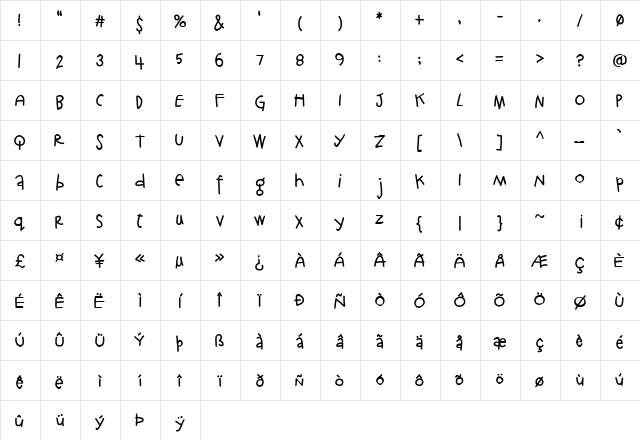
LDJ Hen Hand Regular
Design Context for LDJ Hen Hand Typeface
LDJ Hen Hand flows with the natural rhythm of handwritten lettering, making it ideal for designs that call for warmth and personal expression.
Font Pairing: Combine LDJ Hen Hand with a simple geometric sans for maximum contrast — the tension between flowing curves and clean structure is a classic typographic pairing.
Pro Tip: Use LDJ Hen Hand for short runs of text — names, titles, or taglines. Extended body copy in script faces tires the eye quickly.